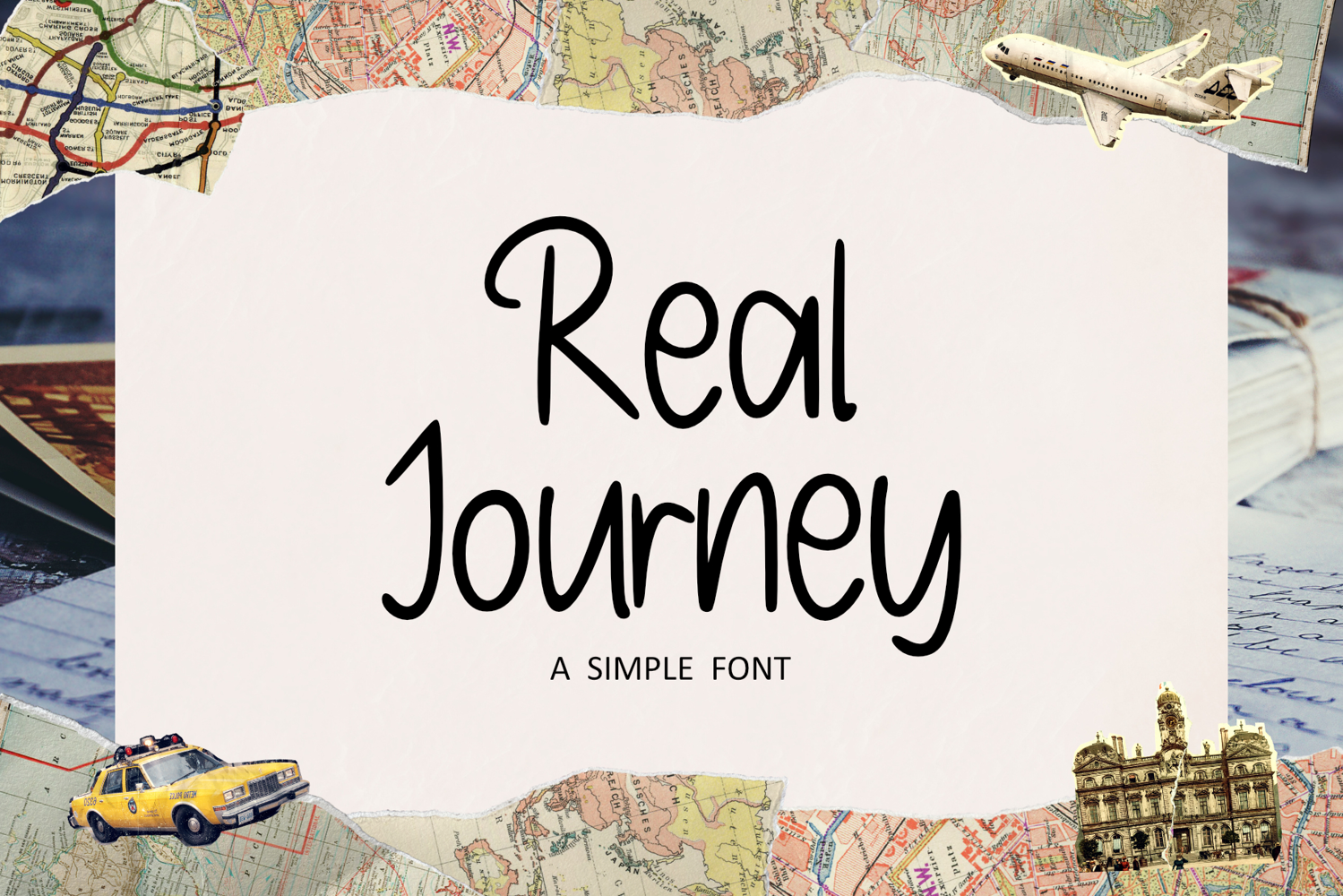
Real Journey
RealJourney
Real Journey Font is a premium script font with a modern and elegant style. Its flowing lines and unique characters make it perfect for branding, logos, invitations, and more. This font adds a touch of sophistication and class to any project.